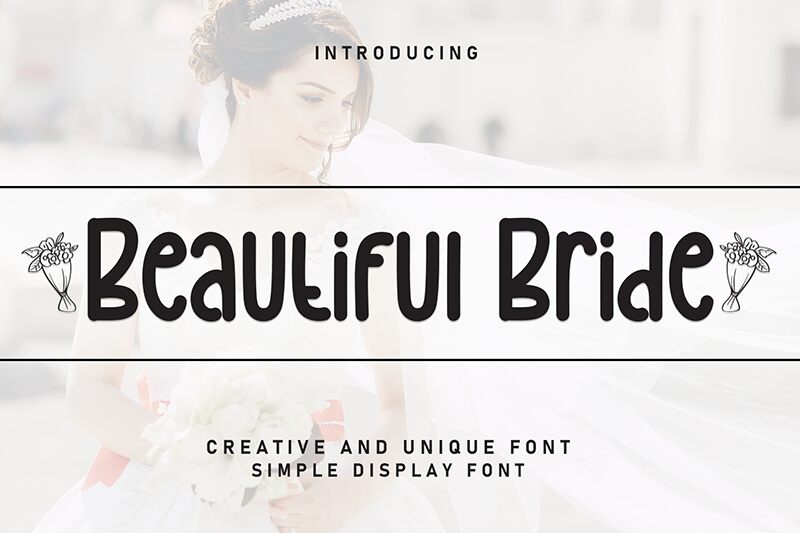
Beautiful Bride
Beautiful Bride font by Andi Moz is a condensed handwritten font that stands out with its rounded and cohesive flow. Its casual elegance comes across as youthful and effortless, with no decorative add-ons.
Perfect for packing design, branding, logotypes, film posters, book covers, invitations, or RSVP wedding cards. Use it in social media posts and banners or use it on fabrics with all kinds of prints.